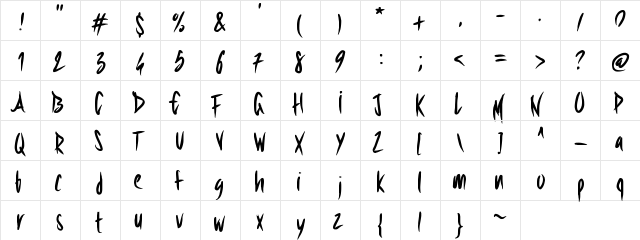
PWSharpBrush Medium
Design Context for PWSharpBrush Typeface
PWSharpBrush flows with the natural rhythm of handwritten lettering, making it ideal for designs that call for warmth and personal expression.
Font Pairing: Combine PWSharpBrush with a simple geometric sans for maximum contrast — the tension between flowing curves and clean structure is a classic typographic pairing.
Pro Tip: Pair PWSharpBrush with a clean sans-serif for supporting text. The contrast between fluid script and geometric structure creates an elegant typographic hierarchy.